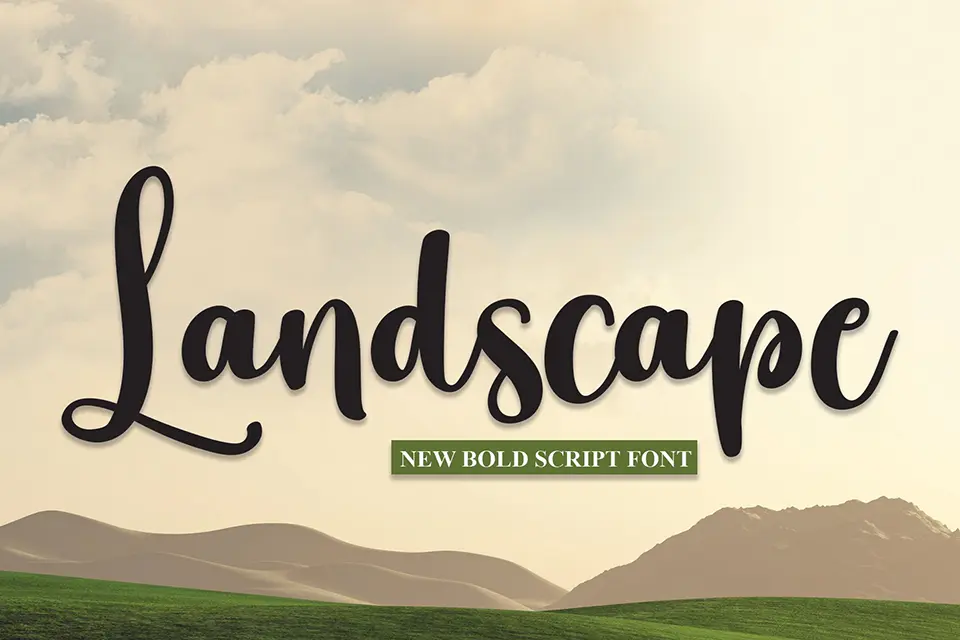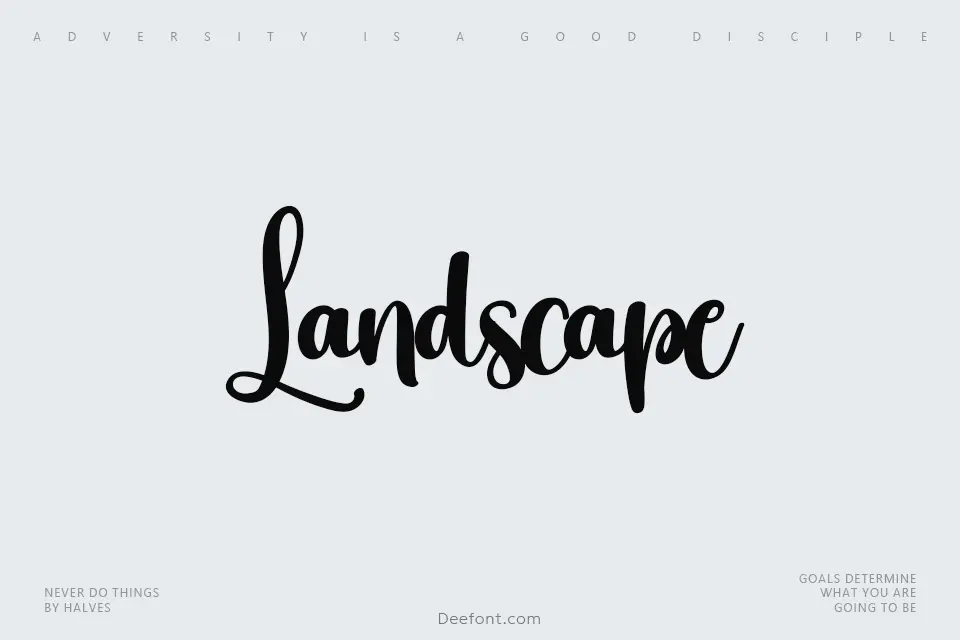
Landscape Font
Landscape Font feels equally charming and elegant. It looks stunning on wedding invitations, thank you cards, quotes, greeting cards, logos, business cards, and every other design which needs a handwritten touch.
Designed by:ScratchonesWebsite